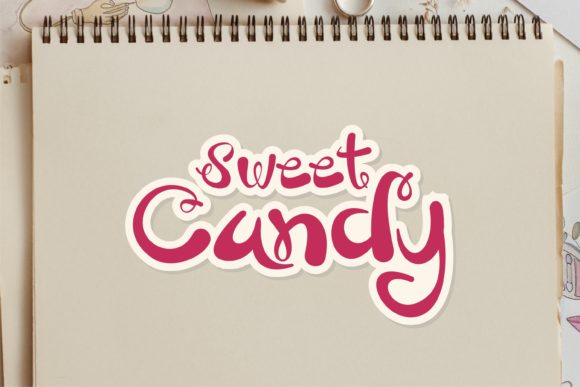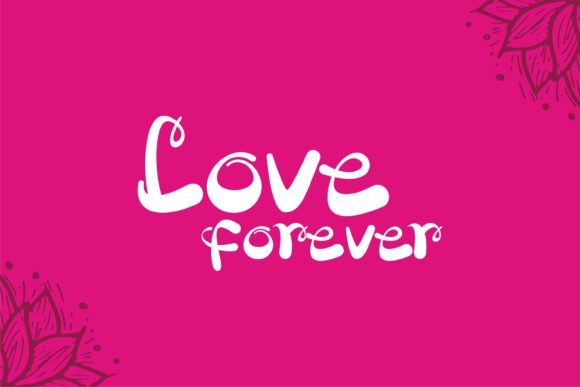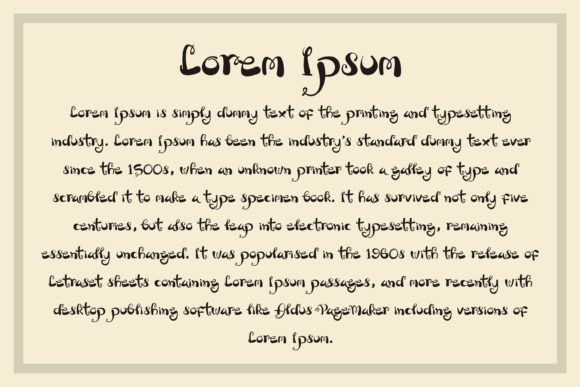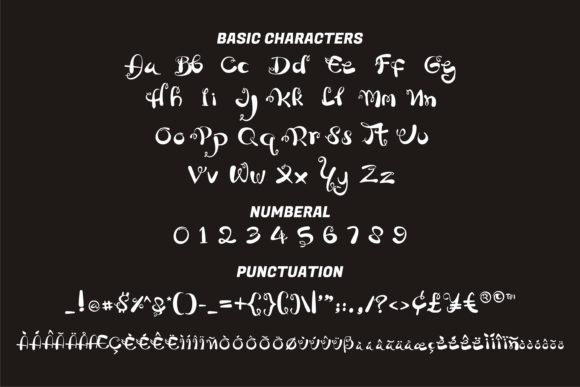
About Arifany Font
Arifany is a chic, refined script font that emanates fun and trendiness. Its stylish alternates and ligatures make this font the perfect match for any project.